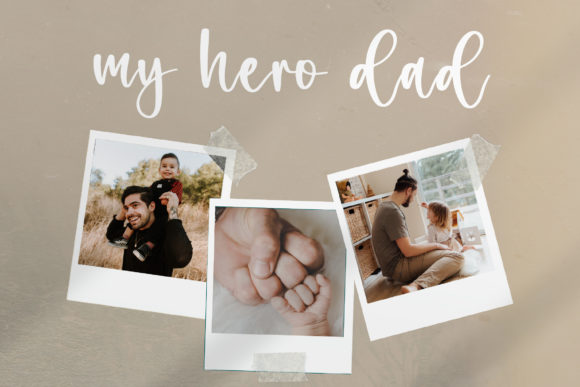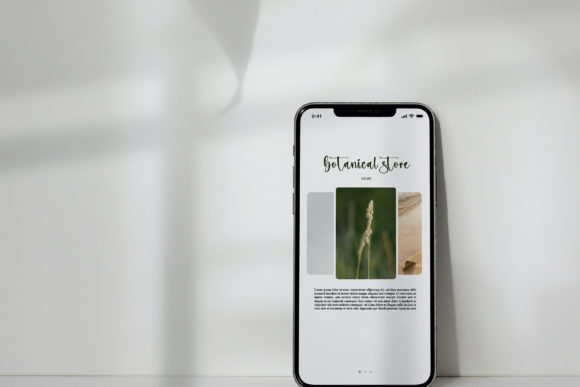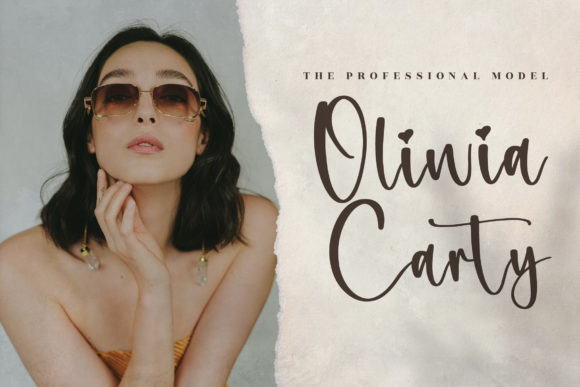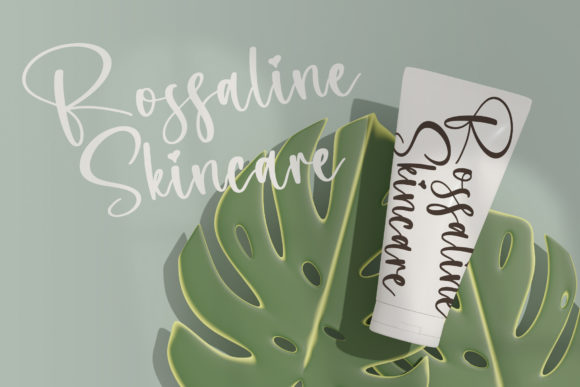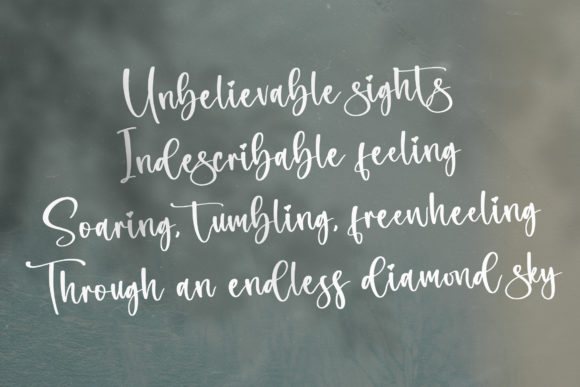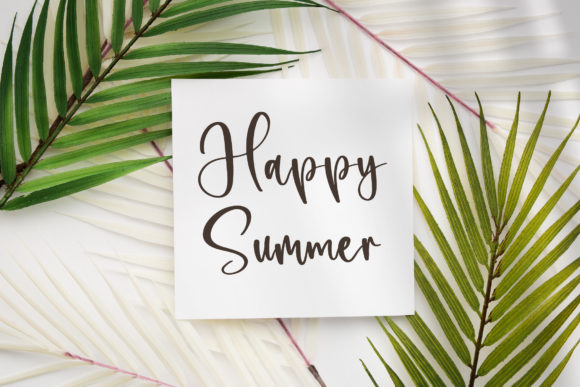
Introduction to Richella Font
Have you ever found yourself scrolling through social media, stumbling upon a beautifully designed post that instantly catches your eye? For designers, that moment of creative inspiration can be a game-changer. It’s a spark that ignites a new idea, a fresh perspective, and a desire to create something equally stunning.
For many of us, that spark can come in the form of a beautiful font. And, among the countless options available, one font stands out for its unique charm and elegance: the Richella Font. With its natural, romantic, and extremely chic feel, Richella Font is the perfect design resource for personal branding projects, tags, badges, wedding invitations, birthday cards, and any other creative project that requires a beautiful personal note.
Key Features of Richella Font
- High-quality, professional font suitable for creative projects, including posters, flyers, and brochures.
- Richella Font is a versatile and elegant design that can add a touch of sophistication to any creative project.
Honest Review: Richella Font
As a designer, I’m always on the lookout for high-quality design resources to elevate my creative projects. Recently, I stumbled upon the Richella Font, and I must say, it’s been a game-changer.
What works well: ✨ The Richella Font boasts a stunning, elegant design that’s perfect for a variety of creative projects. The transparent background makes it easy to customize and pair with other design elements. The font’s high-quality design ensures it looks great on both digital and print materials.
Some of the key features I love about the Richella Font include:
However, I did encounter some limitations: ⚠️ The font only comes in a few weights, which may limit its versatility in certain projects. Additionally, the font may not be suitable for projects that require a bold, attention-grabbing font.
Overall, I’m thoroughly impressed with the Richella Font. Its high-quality design and transparent background make it a valuable addition to any designer’s toolkit. While it may have some limitations, it’s a great resource for designers working on creative projects that require a touch of elegance and sophistication.
Richella Font
The Richella Font is a high-quality design resource perfect for creative projects. It features a transparent background, making it easy to integrate into any design.
Tips for Getting the Most Out of Richella Font
For the best results, use the Richella Font in conjunction with other high-quality design resources. Experiment with different font sizes and colors to find the perfect look for your creative project.
Common Use Cases for Richella Font
The Richella Font is perfect for use in logos, branding materials, and other creative projects where a high-quality, unique font is needed. It’s also great for use in presentations and reports where a clear, easy-to-read font is desired.